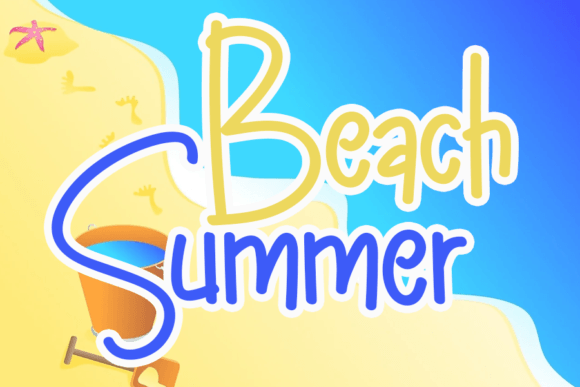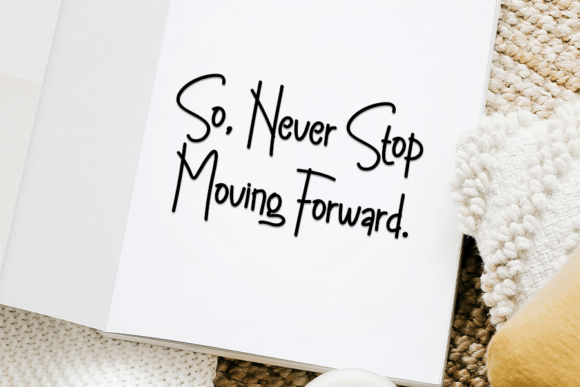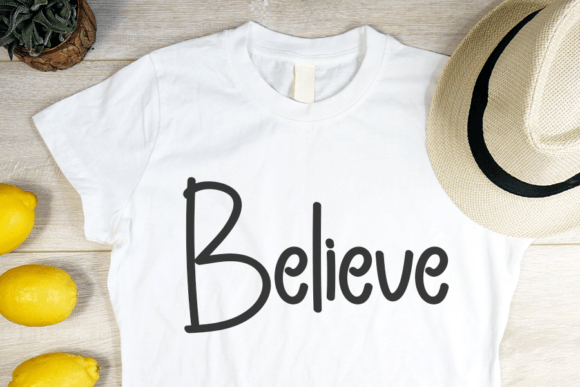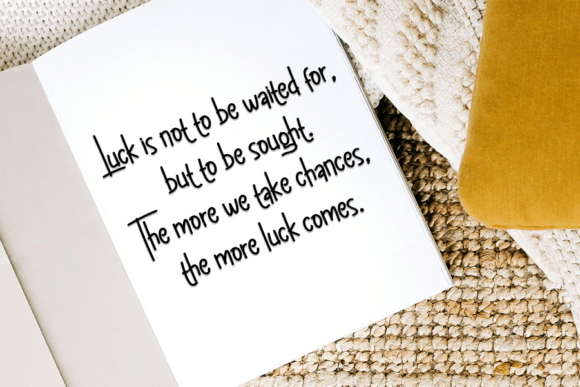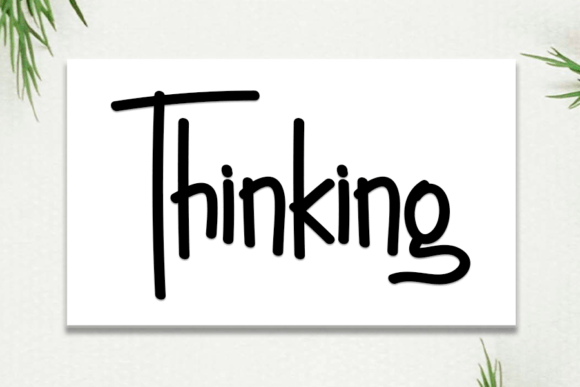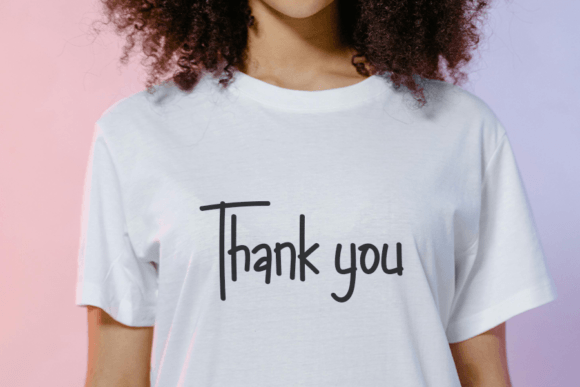
The Perfect Script for Your Summer Vibes
There’s nothing quite like the feeling of creating something special on a warm summer day. You’re sipping on a cold drink, surrounded by the soothing sound of the waves, and your imagination is running wild with ideas. It’s moments like these that inspire us to create something truly unique and special. And, for designers, finding the right font can make all the difference.
Enter the Beach Summer Font, a cool and modern script font designed to bring a touch of summer magic to your designs. Whether you’re crafting a beautiful card, creating a digital presentation, or simply looking for a font to add some personality to your projects, the Beach Summer Font has got you covered.
As a designer, you know how valuable a great font can be. It can elevate your work, add a touch of personality, and make your designs truly stand out. And with the Beach Summer Font, you’ll have endless possibilities to create something truly special.
Beach Summer Font Key Features
- Font Family: Beach Summer Font is a unique, handwritten script font.
- Size: Font size ranges from 8 to 144 points, with additional ligatures and swashes available.
- Unique Characteristics: Features a relaxed, summer vibe with subtle imperfections and texture, perfect for beach-themed designs, wedding invitations, and creative projects.
Beach Summer Font Review
When I first laid eyes on the Beach Summer Font, I was immediately drawn to its vibrant and carefree vibe. ✨ The font’s playful use of pastel colors and swirly details perfectly captures the essence of a summer beach day. The designer’s attention to detail is impressive, from the way the font flows to the clever use of textures.
One of the standout features of this font is its versatility. ✨ It’s perfect for creating eye-catching social media graphics, designing a summer-themed website, or even crafting a playful logo. The font’s numerous style variations allow you to customize it to fit your specific design needs.
- ⚠️ Limited support for non-Latin languages: While the font is a great choice for English-based designs, it may not be suitable for multilingual projects.
- ⚠️ Potential readability issues: The font’s playful design may not be the best choice for large blocks of text, where readability is crucial.
Overall, I’m impressed with the Beach Summer Font’s unique charm and creative possibilities. While it may have some limitations, it’s an excellent choice for designers looking to add a touch of summer fun to their projects.
To get the most out of the Beach Summer Font, try using it in combination with other summer-themed elements, such as palm trees, sunglasses, or ice cream cones.
Experiment with different font sizes, colors, and styles to create a unique and eye-catching design.
The Beach Summer Font is perfect for designing summer-themed projects, such as:
- Beach party invitations
- Summer sale flyers
- Beach-themed social media graphics
- Summer vacation brochures